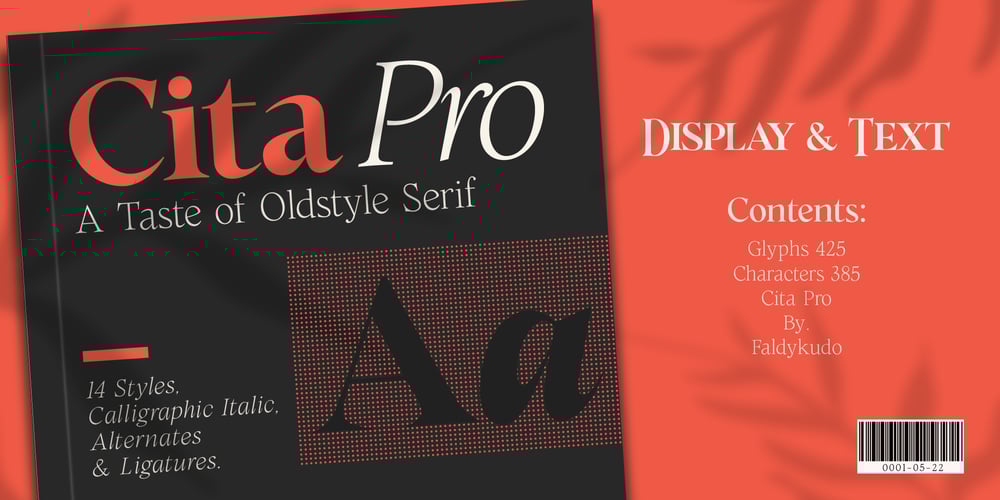
Cita Pro Font Family was designed by Faldy Kudo and published by XdCreative. Cita Pro contains 14 styles and family package options. About Cita ProHi there please say hello to “Cita Pro” the latest collection from @faldykudo, Cita Pro is a serif typeface with a taste of old style, its very beautiful with a timeless aesthetic and has a very wide range for various design situations. Cita Pro is perfect for both display and body text because it has a very good readability. Cita Pro has 14 style and 7 weights, – from Thin to Bold and Matching calligraphic italic. Cita Pro also has special alternate characters in complete uppercase from A-Z . it is to give a different look for your display design. thanks, hope you would like and accept “Cita Pro” as part of your family. thank you in advance